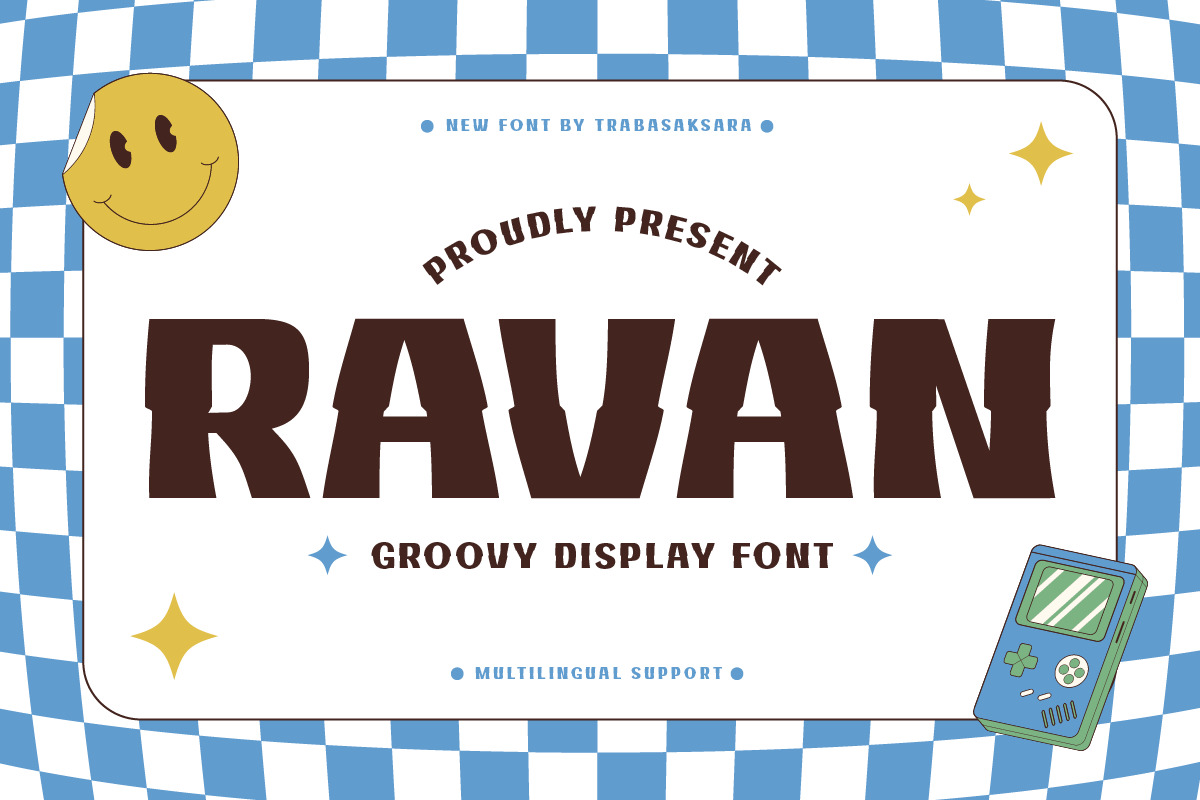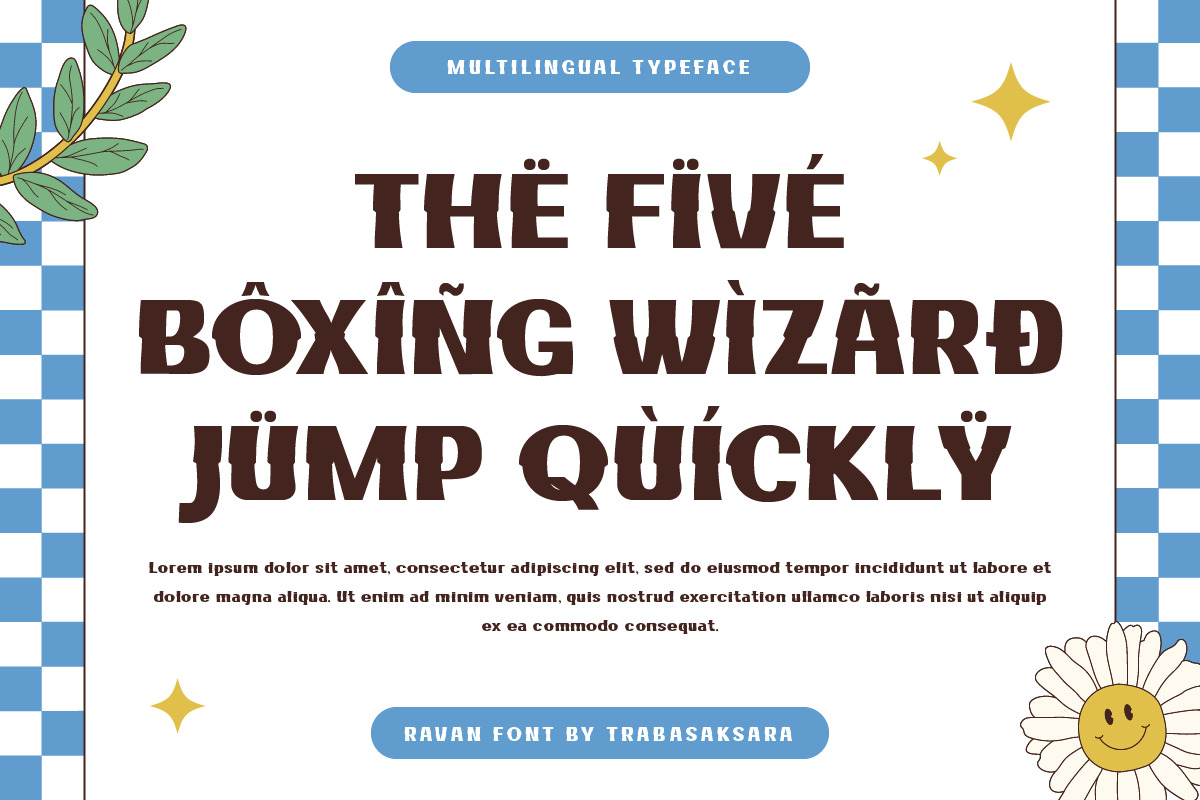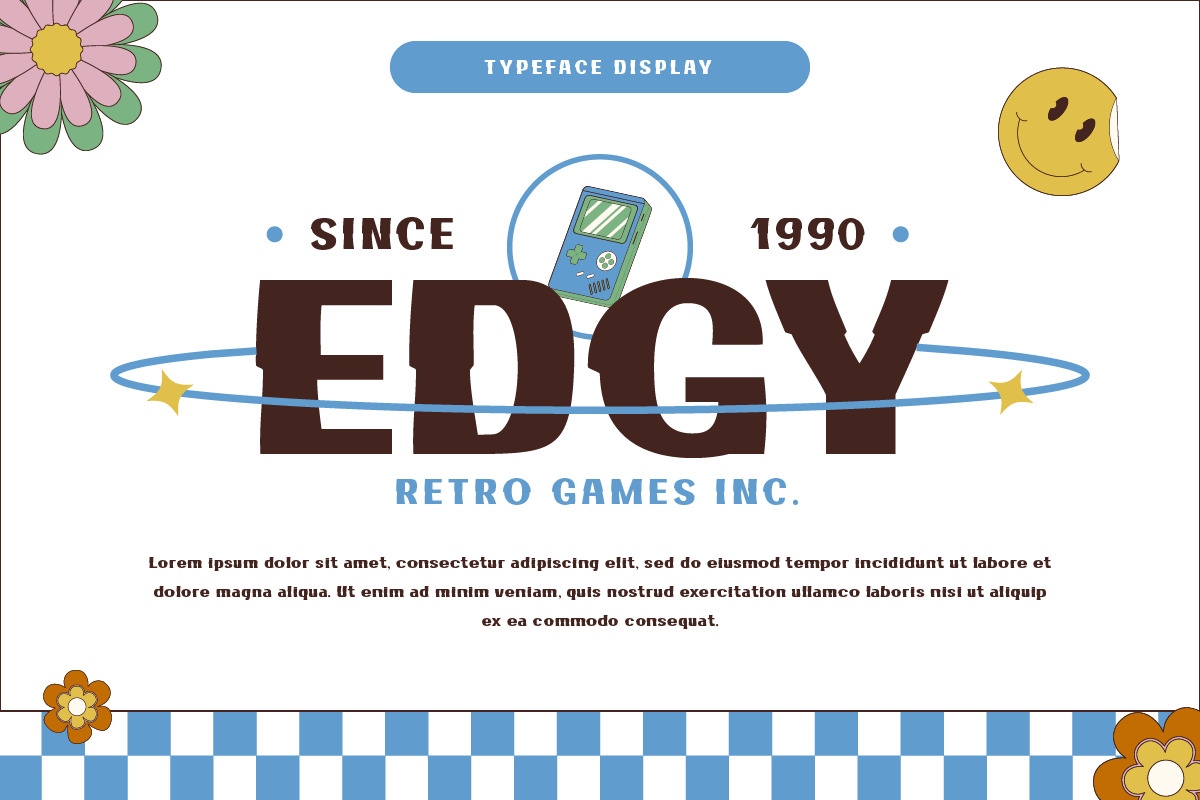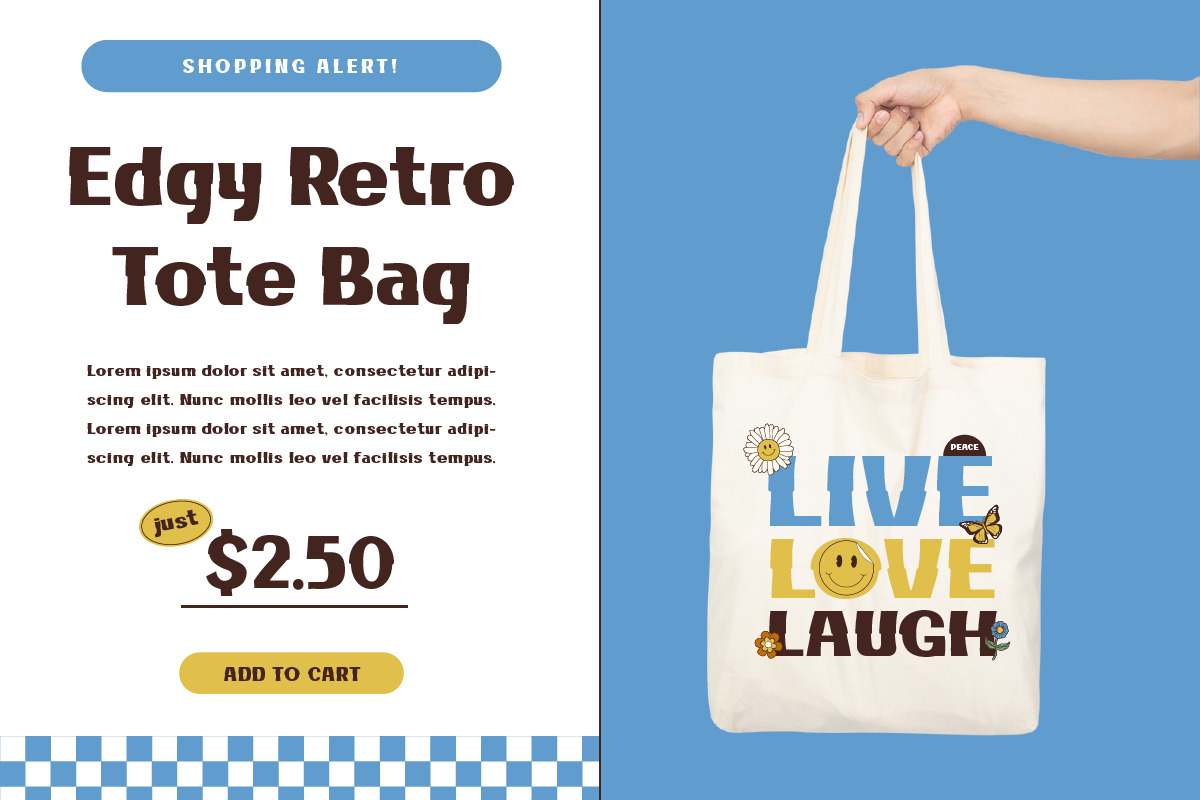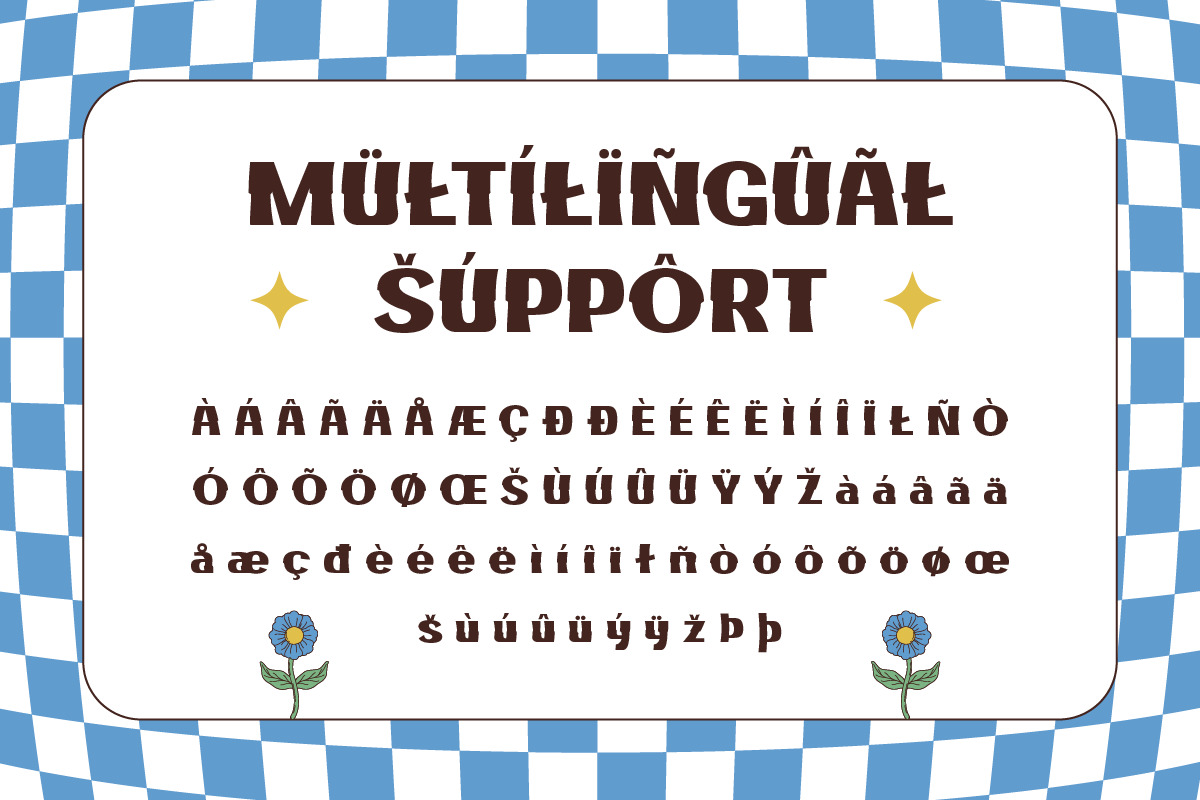
Ravan - Groovy Display Font
Introducing Ravan Font - the perfect choice for designers who want to create designs with a unique and edgy feel.
With its sharp and angular design, Ravan Font is perfect for creating striking headlines, logos, and branding materials that demand attention. This font is crafted with meticulous attention to detail, featuring a unique blend of geometric shapes and sharp lines that make it stand out from other fonts.
Ravan Font is also highly versatile, with a range of weights and styles to suit any design need. Whether you're looking for a bold and dramatic display font or a more understated option for body text, Ravan Font has you covered.
Designed to be both stylish and functional, Ravan Font is easy to read and perfect for use in a wide range of design projects. Its clean lines and modern aesthetic make it the ideal choice for designers who want to create designs that are both impactful and memorable.